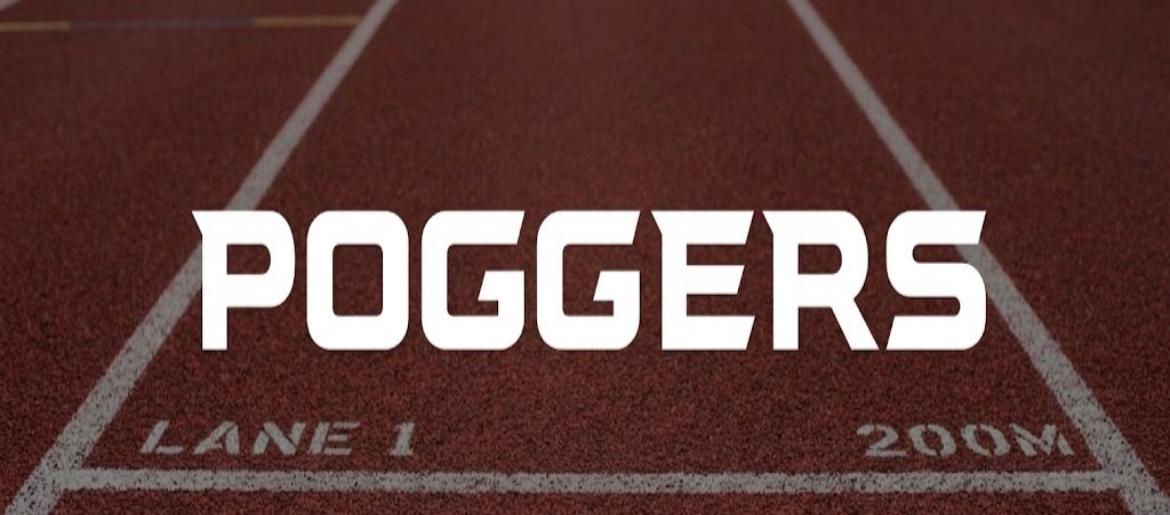
Poggers Font
Poggers by Travis Howell of Creative Grenade is a punchy all-caps bold block typeface engineered for impact. Clean, condensed, and unapologetically confident, its strong upright letterforms project the kind of authority that makes branding names pop, gaming titles land, and sports event headlines impossible to ignore. Equally at home on product packaging, news headlines, jersey graphics, poster titles, and streetwear apparel, Poggers brings a versatile typographic muscle to any project that demands presence. Uniquely, this font is free for both personal and commercial use — no strings attached.